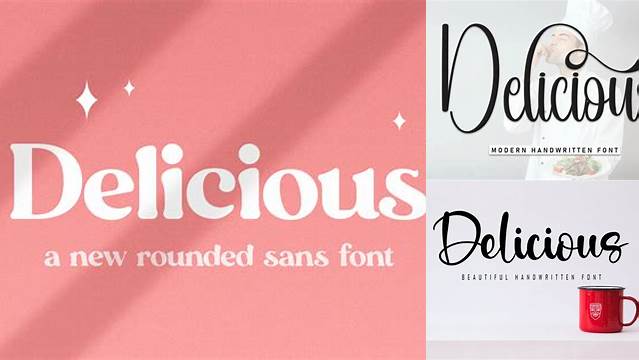
Are you looking to infuse your designs with a touch of elegance, personality, and charm? Look no further than the world of beautiful and delicious script fonts. These fonts, inspired by the art of calligraphy and handwriting, can transform ordinary text into captivating works of art. They evoke feelings of warmth, sophistication, and authenticity, making them perfect for a wide range of creative projects. In this article, we'll explore the allure of script fonts, highlight their versatility, and guide you towards some fantastic free downloads to elevate your design game.
The Allure of Script Fonts
Script fonts possess a unique ability to connect with viewers on an emotional level. Unlike their more structured and formal counterparts, script fonts mimic the fluidity and expressiveness of human handwriting. This inherent quality makes them feel personal, approachable, and inviting. Imagine a wedding invitation adorned with a delicate script font, instantly conveying romance and celebration. Or picture a logo for a handmade goods business, where a whimsical script font evokes feelings of craftsmanship and care. The power of script fonts lies in their ability to tell a story and create a distinct mood.
The beauty of script fonts extends beyond their aesthetic appeal. They offer incredible versatility, allowing designers to tailor their projects to specific audiences and purposes. From elegant and refined scripts that exude luxury to playful and quirky scripts that radiate fun, the possibilities are endless. This adaptability makes them invaluable tools for branding, advertising, web design, and a myriad of other creative endeavors. Script fonts can be used to create stunning headlines, eye-catching logos, memorable invitations, and captivating social media graphics. Their ability to seamlessly blend with various design styles makes them a staple in the designer's toolkit.
Choosing the Right Script Font
Selecting the perfect script font can be a daunting task, given the sheer number of options available. However, by considering a few key factors, you can narrow down your choices and find the font that best suits your project's needs. Here are some essential tips to guide you through the selection process:
- Consider the Project's Purpose: What message are you trying to convey? Is it elegance, playfulness, sophistication, or something else? The font should align with the overall tone and feel of your design. For example, if you're designing a logo for a high-end fashion brand, you'll want to choose a script font that exudes luxury and refinement. On the other hand, if you're creating a poster for a children's event, a playful and whimsical script font would be more appropriate.
- Readability is Key: While script fonts are visually appealing, readability should always be a top priority. Avoid fonts with overly intricate or decorative elements that might make the text difficult to decipher. Choose fonts with clear letterforms and ample spacing between characters. Before committing to a font, test it out with different text sizes and weights to ensure it remains legible across various applications.
- Pairing Matters: Script fonts often work best when paired with simpler, more neutral fonts. This contrast can create visual interest and balance, preventing the design from becoming overwhelming. Consider pairing a bold script font with a clean sans-serif font for headlines or a delicate script font with a classic serif font for body text. Experiment with different combinations to find what works best for your specific project.
By keeping these factors in mind, you can confidently select script fonts that enhance your designs and effectively communicate your message. Remember to prioritize readability, consider the project's purpose, and pay attention to licensing terms. Now, let's explore some fantastic resources for finding free and delicious script fonts.
Where to Find Free and Delicious Script Fonts
The internet is a treasure trove of free fonts, but it's important to be discerning and choose reputable sources. Here are some excellent websites where you can find high-quality script fonts without spending a dime:
- Google Fonts: Google Fonts is a vast library of open-source fonts that are free for both personal and commercial use. It offers a diverse selection of script fonts, ranging from classic calligraphic styles to modern and playful designs. Google Fonts also provides helpful information about each font, including its designer, usage statistics, and recommended pairings. The fonts are easy to access and integrate into your website or design software.
Beautiful and delicious script fonts are a powerful tool for designers seeking to add a touch of elegance, personality, and charm to their projects. With their inherent ability to evoke emotions and tell stories, script fonts can transform ordinary text into captivating works of art. By carefully selecting the right font, considering its readability, and pairing it with complementary fonts, you can create stunning visuals that leave a lasting impression. And with the abundance of free script fonts available online, you can explore the world of typography without breaking the bank. So go ahead, download some free script fonts, unleash your creativity, and elevate your designs to new heights!